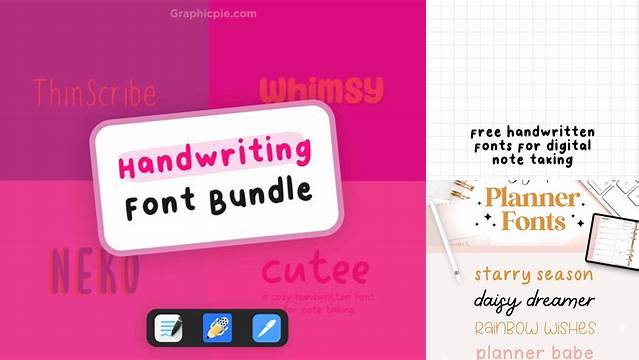
Free Handwriting Fonts For GoodNotes: Best Picks
Are you looking to elevate your note-taking experience on GoodNotes with some stunning handwriting fonts? Well, you've come to the right place! In this article, we're diving deep into the world of the best handwriting fonts for GoodNotes, and the best part? They're all available for free! Let's explore how the right font can transform your digital notes from looking bland to absolutely brilliant. We'll cover a range of fonts, from elegant and cursive to playful and quirky, ensuring there's something for everyone.
Why Handwriting Fonts Matter in GoodNotes
Let's talk about why handwriting fonts are such a game-changer in GoodNotes. Imagine writing your notes in a font that truly reflects your personal style. It’s like adding your unique signature to everything you create! Using handwriting fonts can make your notes not only more visually appealing but also more engaging. Think about it – when your notes look good, you're more likely to actually want to read them, right?
Beyond aesthetics, handwriting fonts can also improve readability. A well-chosen font can make your notes clearer and easier to scan, especially during those late-night study sessions. Plus, they add a touch of authenticity to your digital work, making it feel more personal and less like generic typed text. For students, professionals, and creatives alike, the right font can be a powerful tool for self-expression and productivity. So, whether you're jotting down lecture notes, sketching out ideas, or planning your next big project, selecting the perfect handwriting font can make a world of difference. We'll explore how different fonts evoke different moods and styles, helping you tailor your notes to suit any occasion. The goal here is to help you transform your GoodNotes experience from ordinary to extraordinary, one font at a time. So buckle up, and let's dive into the exciting world of free handwriting fonts!
Top Free Handwriting Fonts for GoodNotes
Alright, guys, let's get to the juicy part – the top free handwriting fonts you can use in GoodNotes! We've scoured the internet to bring you a curated list of fonts that are not only beautiful but also completely free to use. These fonts are perfect for adding that personal touch to your notes, journals, and planners. We'll be looking at a variety of styles, from elegant scripts to casual block letters, ensuring there's something for every taste and need. Each font has its own unique personality, so you can mix and match to create the perfect vibe for your notes. Let's jump right into our favorites:
1. KG Red Hands
First up, we have KG Red Hands, a font that's playful, quirky, and oh-so-charming. This font is perfect for adding a touch of fun to your notes. Imagine using it for headings, titles, or even just to sprinkle some personality throughout your text. KG Red Hands has a whimsical feel that's ideal for more casual note-taking scenarios, like brainstorming sessions or personal journaling. The slightly irregular letterforms give it a genuine handwritten look, making your digital notes feel more authentic and less sterile. It’s also surprisingly readable, which is a huge plus when you're trying to review your notes quickly. This font is a fantastic choice for students who want to make their study notes a bit more engaging or for anyone who wants to add a touch of personality to their digital planning. The versatility of KG Red Hands means it can be used in a variety of contexts, from bullet journaling to creative writing projects. It’s the kind of font that brings a smile to your face every time you see it, and that's exactly what you want when you're trying to stay motivated and organized. So, if you're looking for a font that's both fun and functional, KG Red Hands is definitely worth checking out!
2. Always in My Heart
Next on our list is Always in My Heart, a font that exudes elegance and grace. If you're looking for a handwriting font that's perfect for more formal notes or creative projects, this is the one. Always in My Heart has a beautiful, flowing script that adds a touch of sophistication to anything you write. Think of using it for wedding planning notes, elegant invitations, or even just to make your daily to-do list feel a little more special. The delicate strokes and elegant curves of this font make it a standout choice for those who appreciate the finer things in life. It’s the kind of font that makes you want to slow down and savor the moment, which can be a wonderful thing when you're trying to stay present and mindful. Despite its elegant appearance, Always in My Heart is surprisingly readable, making it a practical choice for longer passages of text as well. This font is also a great option for creating visually appealing headers or subheadings in your GoodNotes documents. The way the letters connect and flow together creates a sense of harmony and balance, making your notes not only informative but also aesthetically pleasing. So, if you're looking to add a touch of class and refinement to your digital handwriting, Always in My Heart is a must-try!
3. DK Lemon Yellow Sun
For those who prefer a more casual and relaxed vibe, DK Lemon Yellow Sun is an excellent choice. This font has a friendly and approachable feel, making it perfect for everyday note-taking and journaling. Imagine using it for your daily planner, personal reflections, or even just quick notes during a meeting. DK Lemon Yellow Sun has a slightly messy, handwritten look that adds a touch of authenticity to your digital text. It’s the kind of font that makes you feel like you're writing in your favorite notebook with your go-to pen. The slightly uneven letterforms give it a unique character, and it’s incredibly easy to read, even in smaller sizes. This font is a great option for students who want a font that’s both stylish and practical, or for anyone who wants to add a touch of personality to their digital workspace. The versatility of DK Lemon Yellow Sun means it can be used in a variety of contexts, from brainstorming sessions to creative writing projects. It’s a font that feels comfortable and familiar, making it a great choice for those who want their digital notes to feel as personal as their handwritten ones. The lighthearted and sunny disposition of DK Lemon Yellow Sun makes it a joy to use, and it's sure to brighten up your GoodNotes experience. So, if you're looking for a font that's both casual and charming, this one is definitely worth a try!
4. Honey Bee
If you're on the hunt for a font that’s as sweet as honey, look no further than Honey Bee. This font is playful, whimsical, and full of character. It's perfect for adding a touch of fun to your GoodNotes documents, whether you're creating a colorful planner, designing a cute set of notes, or just want to make your to-do list a little more cheerful. Honey Bee has a charming, handwritten style with slightly rounded letterforms that give it a friendly and approachable feel. The irregular baseline adds to its whimsical nature, making it feel like a real handwritten script. This font is particularly well-suited for creative projects, such as designing greeting cards, posters, or even social media graphics. It’s also a great choice for personal journaling or scrapbooking, where you want your text to reflect your unique personality. Despite its playful appearance, Honey Bee is surprisingly legible, making it a practical choice for everyday use. It's a font that brings a sense of joy and creativity to your digital workspace, and it’s sure to put a smile on your face every time you use it. The versatility of Honey Bee means it can be used in a variety of contexts, from educational materials to personal projects. So, if you're looking for a font that's both fun and functional, Honey Bee is definitely a top contender!
So there you have it, folks! A comprehensive guide to the best handwriting fonts for GoodNotes, all available for free. We've covered everything from why handwriting fonts matter to how to install them and use them effectively. The right font can truly transform your GoodNotes experience, making your notes more personal, engaging, and visually appealing. Whether you're a student, a professional, or a creative enthusiast, adding custom fonts to your digital notes is a fantastic way to express your unique style and stay organized. We've highlighted some top contenders, like KG Red Hands, Always in My Heart, DK Lemon Yellow Sun, and Honey Bee, each offering its own distinct personality and charm. Remember, the key is to choose fonts that not only look great but also enhance readability and overall note-taking efficiency. So, don't be afraid to experiment, try out different fonts, and find the ones that resonate with you. With a little creativity and the right font, you can take your GoodNotes to the next level. Happy note-taking, guys!